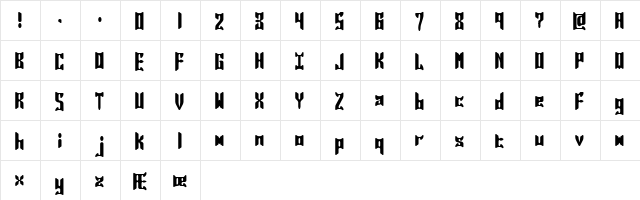
Jasper Solid (BRK) Regular
Design Context for Jasper Solid (BRK) Typeface
Jasper Solid (BRK) is a composed and adaptable typeface that performs quietly and consistently across a wide range of design contexts.